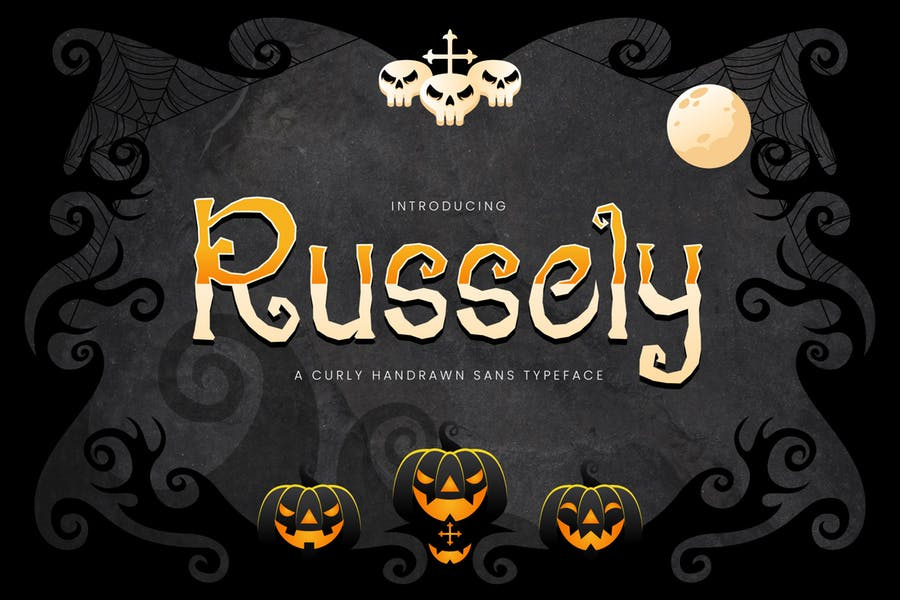
Russely - Curly Handrawn Halloween Font
This spooky font is perfect for Halloween party invitations, haunted house signage, trick-or-treat decorations, Halloween costume parties, spooky seasonal branding, horror movie posters, Halloween craft projects, ghostly Halloween cards, creepy festival displays, and eerie Halloween messaging materials.
Russely - Curly Handrawn Halloween Font is exciting because it captures the playfully spooky charm and whimsical eeriness of Halloween through its organically twisted letterforms that seem to writhe and curl like mysterious vines growing in a haunted garden. The font features delightfully twisted characters with hand-drawn irregularities and curly details that evoke the enchanting magic of Halloween night when ordinary things become mysteriously transformed, incorporating spooky swirls and eerie flourishes that create typography as captivating and slightly unsettling as shadows dancing in candlelight. Each letter showcases the perfect balance between spooky and charming that makes Halloween such a beloved celebration, with organic curves and mystical accents that transform ordinary text into bewitching expressions that capture the thrilling excitement of Halloween's supernatural atmosphere while maintaining the fun and playful spirit that makes the holiday so enjoyable for all ages.
The Russely - Curly Handrawn Halloween Font family includes spooky style variations: Regular, Bold, Light, Twisted, and Haunted versions. The collection features special Halloween elements including web-like swirls, ghostly curves, spooky flourishes, and mystical ornaments. Additional components include haunted borders, eerie frames, spooky decorations, and mysterious ornamental designs that enhance the font's Halloween appeal and create cohesive supernatural holiday themes.
Halloween enthusiasts and spooky event planners will find Russely - Curly Handrawn Halloween Font Free Download to be an exceptional resource for creating authentically eerie Halloween communications that capture the perfect blend of spookiness and charm that makes Halloween celebrations so thrilling and memorable. This hauntingly crafted font transforms ordinary Halloween messaging into bewitching expressions that convey the magical mystery and playful fear that make Halloween the most supernaturally exciting night of the year.
The typeface includes comprehensive character support with spooky styling that maintains excellent readability while conveying the mysterious charm and eerie playfulness of Halloween celebrations. The font's twisted design ensures captivating results across both children's Halloween applications and adult spooky party projects.
Perfect for Halloween parties, haunted attractions, spooky celebrations, and eerie seasonal marketing, this font delivers mysteriously captivating visual impact that communicates supernatural charm, playful spookiness, and the delightfully eerie atmosphere that makes Halloween such a thrilling and magically mysterious celebration for supernatural fun lovers everywhere.